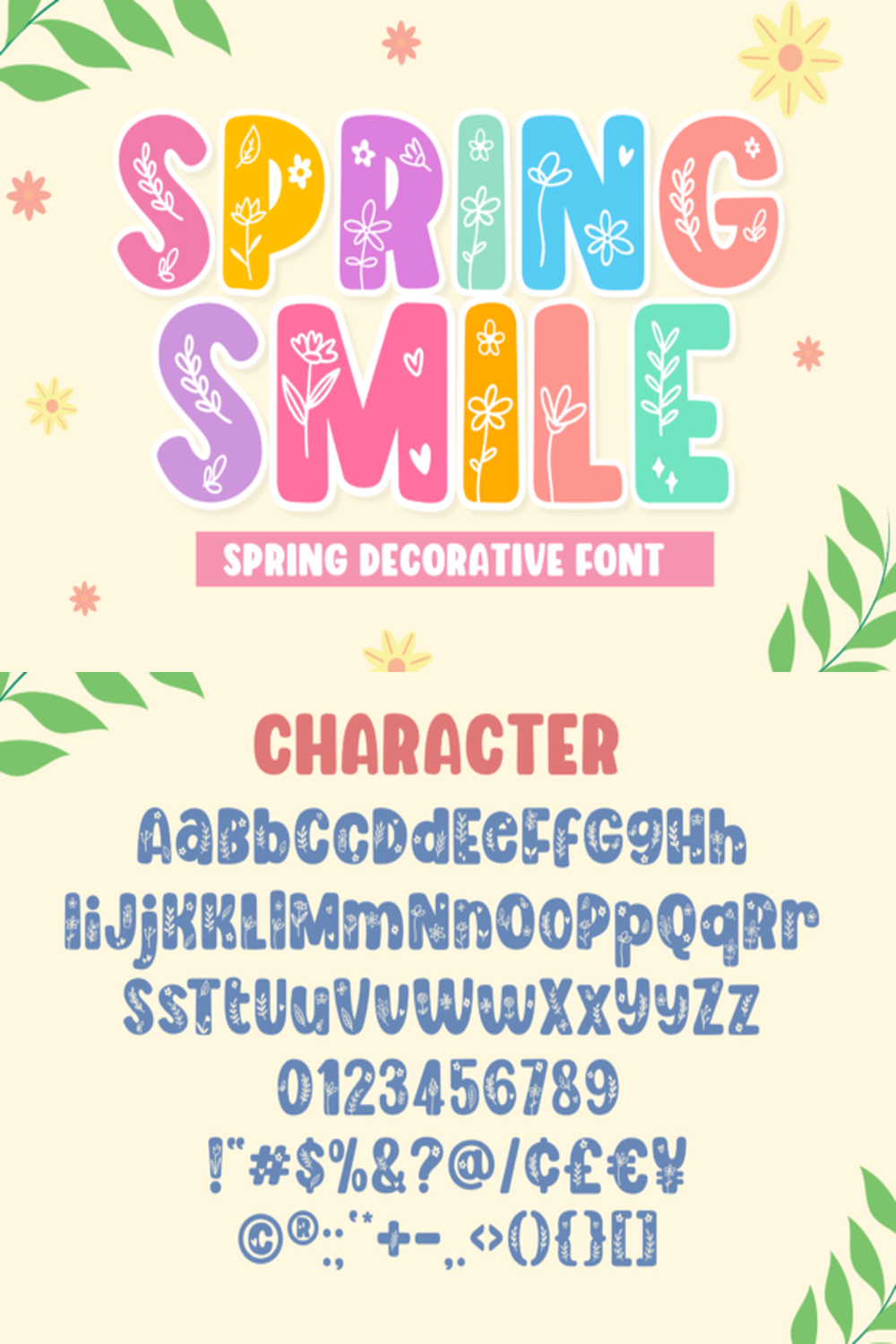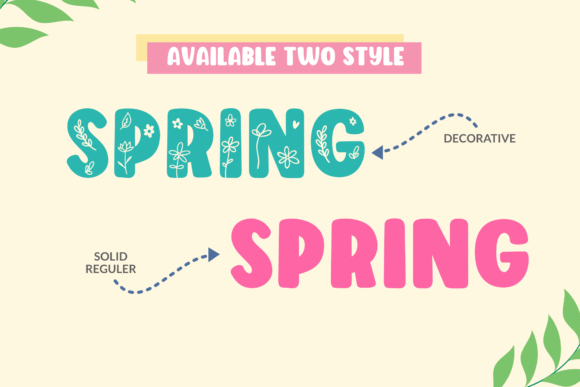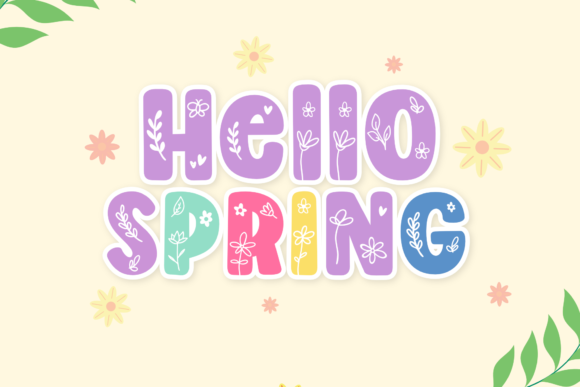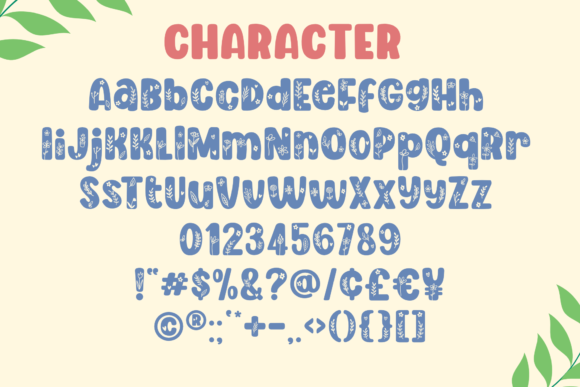
Spring Smile Font: A Cute & Playful Decorative Font for Crafts
About the Spring Smile Font
Meet Spring Smile Font, a stunning font that brings a touch of elegance and professionalism to any design. Spring Smile is an adorable, bold and thick lettered decorative font. Whether you use it for cartoon related designs, spring crafts, children games or just any creation that requires a lovely touch, this font will be an amazing choice.
Spring Smile Font Usage Examples